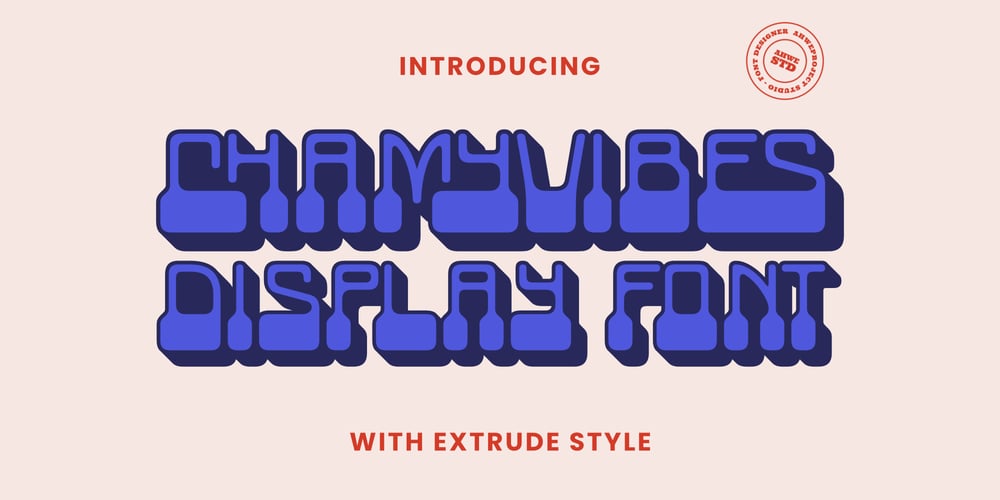
Chamyvibes Font Family was designed by Dida Ahluddin and published by ahweproject. Chamyvibes contains 2 styles and family package options. Helmida is a distinct and graceful retro script font. Fall for its ravishing style and use it to create gorgeous designs. This font is PUA encoded which means you can access all glyphs and swashes with ease!Helmida is perfect for branding projects, logo, wedding designs, social media posts, advertisements, product packaging, product designs, label, photography, watermark, invitation, stationery and any projects that need handwriting taste.